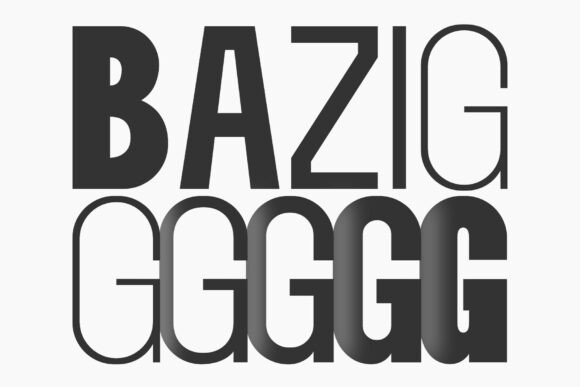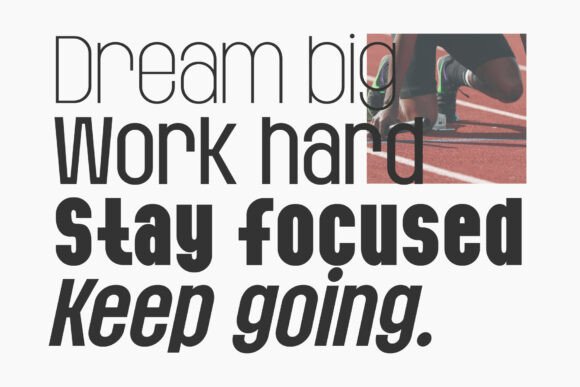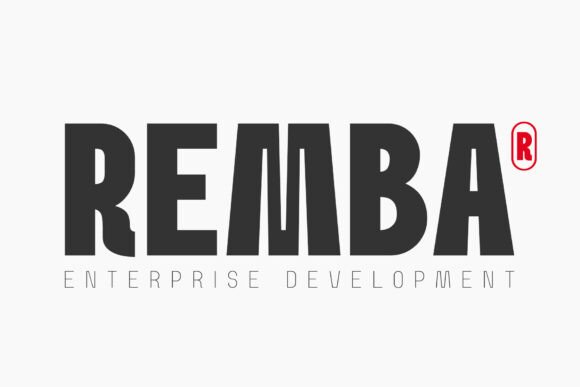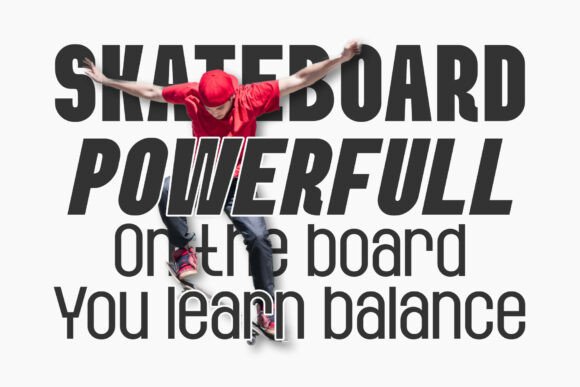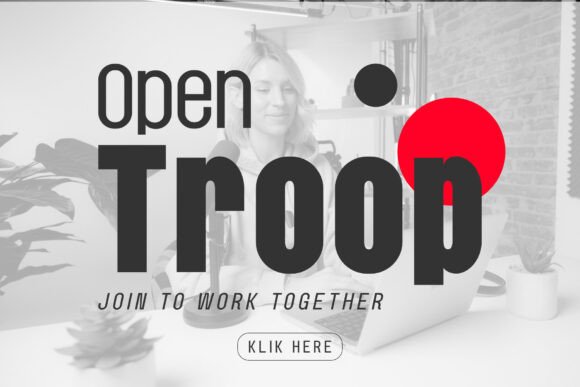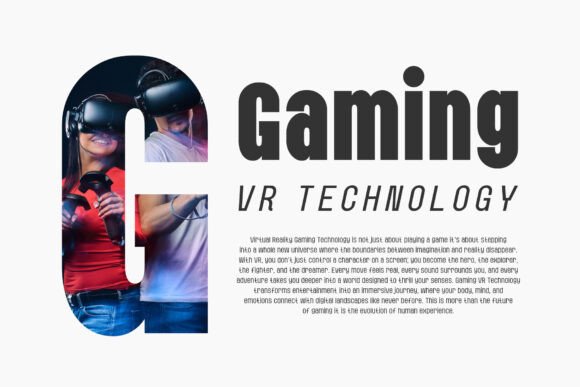
Bazig Font: Elevate Your Designs with a Modern Sans Serif Typeface
In the world of typography, a font can make or break a design. With the right typeface, you can convey your message with clarity, elegance, and sophistication. Introducing Bazig, a modern sans serif font family that embodies the perfect balance between sharp lines and minimalist forms. This versatile typeface is designed to cater to a wide range of design needs, from professional and corporate to creative and artistic projects.
Clean, Elegant, and Versatile
Bazig is characterized by its clean and elegant appearance, making it an ideal choice for designers who seek a font that exudes simplicity and sophistication. The font family comes in a range of styles, from Thin to Bold, complete with Italic versions, providing full flexibility for any design project. Whether you’re working on a business card, website, logo, or invitation, Bazig has got you covered.
Key Features of Bazig Font
- Modern Sans Serif Design: Bazig boasts a contemporary sans serif design that is both fresh and timeless.
- Range of Styles: The font family includes multiple weights, from Thin to Bold, along with Italic versions, offering versatility for various design applications.
- Perfect Balance: Bazig strikes a perfect balance between sharp lines and minimalist forms, making it suitable for both professional and creative projects.
- Elegant and Clean: The font’s elegant and clean appearance ensures that your designs look sophisticated and refined.
Use Cases for Bazig Font
Bazig’s versatility makes it an excellent choice for a variety of design projects. Here are some use cases where Bazig truly shines:
- Business Cards: Create a lasting impression with Bazig’s clean and professional appearance, perfect for business cards that require a touch of elegance.
- Websites: Enhance your website’s typography with Bazig’s modern and readable design, ensuring a great user experience.
- Logos: Use Bazig to create a strong and memorable logo that communicates your brand’s values and personality.
- Invitations: Add a touch of sophistication to your invitations, whether it’s for a wedding, event, or corporate gathering.
- Marketing Materials: From brochures to flyers, Bazig is an excellent choice for any marketing material that requires a clean and professional look.
Why Choose Bazig Font?
With so many fonts available, why should you choose Bazig? Here are a few compelling reasons:
- Flexibility: With multiple weights and Italic versions, Bazig offers the flexibility to adapt to any design project.
- Legibility: The font’s clean design ensures excellent legibility, making it perfect for both digital and print applications.
- Timeless Appeal: Bazig’s modern sans serif design has a timeless appeal that won’t go out of style anytime soon.
- Easy to Pair: Bazig pairs well with a variety of fonts, giving you the freedom to experiment with different typography combinations.
| Font Name | Bazig Font |
| Author | Sealoung |
Bazig is a modern sans serif typeface family that offers a perfect blend of elegance, versatility, and professionalism. Whether you’re a designer, craftsperson, or simply someone who appreciates good typography, Bazig is an excellent addition to your font library. With its range of styles, clean design, and timeless appeal, Bazig is sure to elevate your designs and help you create stunning visual content.